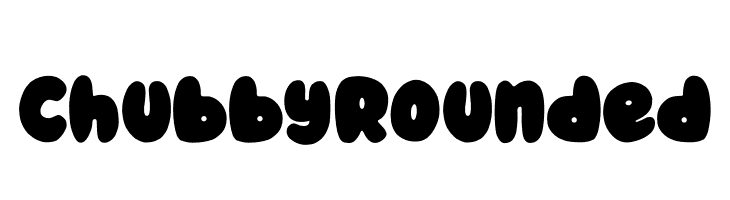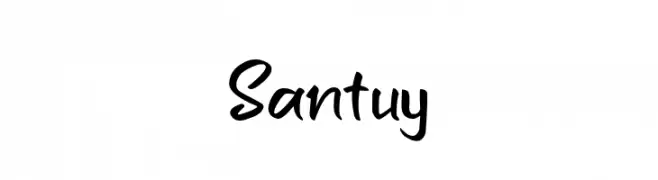
A cursive, elegant font with a handwritten style.
A bold, handwritten font with a playful and artistic style.
A bold, expressive brush script font with dynamic strokes and a hand-painted look.
A playful and elegant script font with smooth, flowing lines and a handwritten charm.
A bold, dynamic font with thick strokes and a playful, cartoonish style.
A playful, hand-drawn font with irregular strokes and a casual style.
A bold, edgy, hand-drawn font with sharp, jagged edges and dynamic strokes.
A bold, playful font with a 3D effect and strong contrast.
A bold, distressed font with a rugged, textured appearance.
A bold, textured font with a diagonal crosshatch pattern, perfect for dynamic designs.